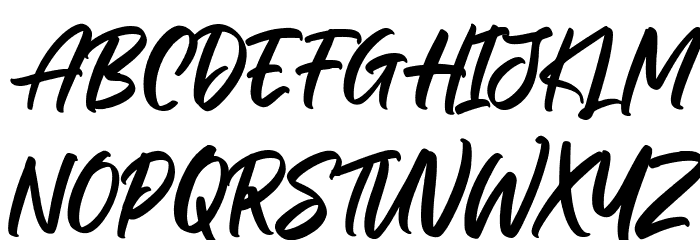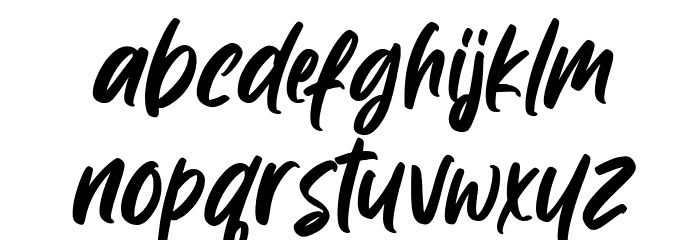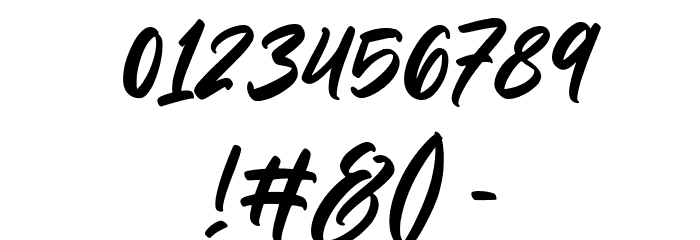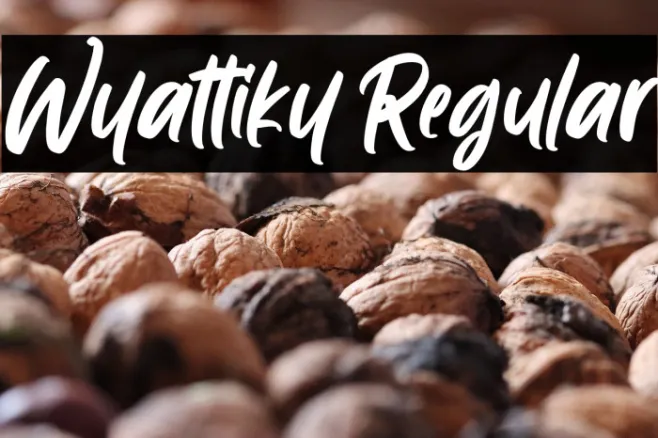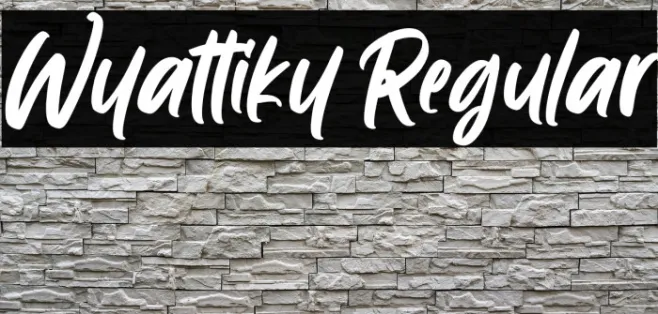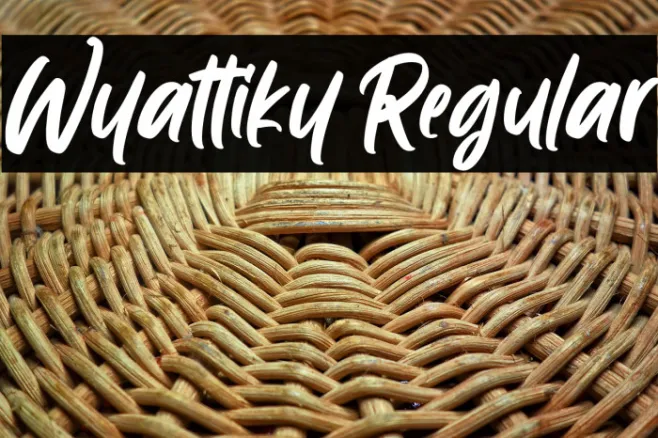
Wyattiky Regular Font
This font features a dynamic and energetic script style, characterized by its bold and flowing strokes. The letters are interconnected, creating a sense of movement and fluidity. The uppercase letters are slightly larger and more pronounced, while the lowercase letters maintain a consistent rhythm. The numbers and special characters are designed to match the overall style, with a playful yet sophisticated appearance. This font is suitable for projects that require a personal touch, such as invitations, branding, and creative designs.
A bold, dynamic script font with flowing, interconnected strokes.
- Proposed Projects: Ideal for invitations, branding, and creative design projects that require a personal and energetic touch.
- Category: Script
- Use Case: Logos, Headlines, Invitations